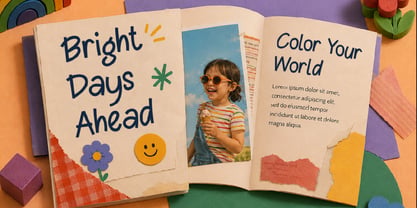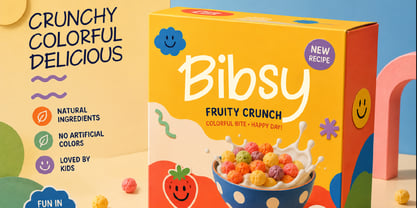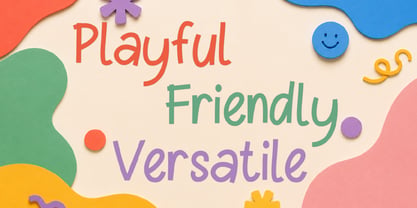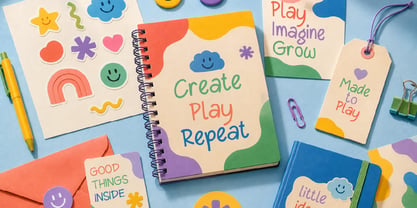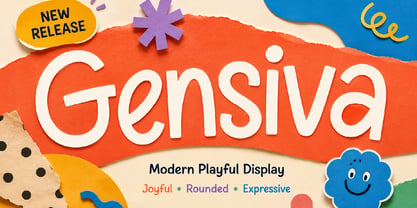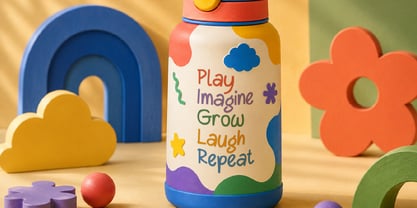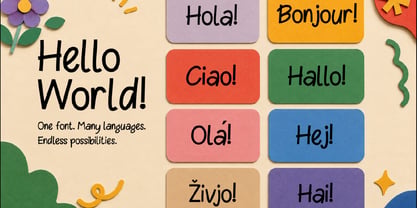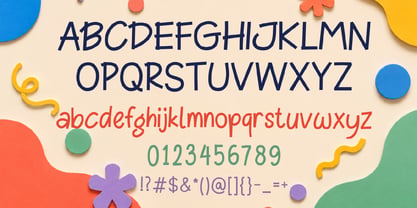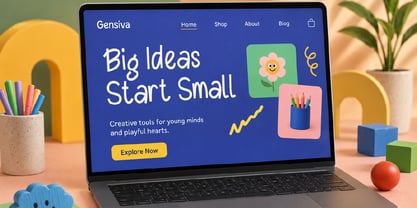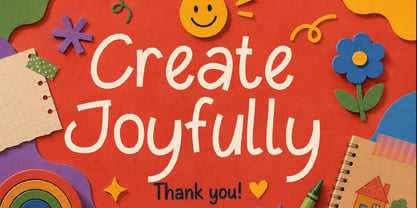
Gensiva
Gensiva is a cheerful display typeface designed to infuse warmth, creativity, and personality into every project. Its soft curves, playful rhythm, and contemporary character shapes create a friendly visual voice that is both artistic and approachable. Ideal for modern branding systems, colorful packaging, editorial layouts, creative websites, and children-focused visual identities, Gensiva strikes a perfect balance between fun energy and clean readability.
Each letterform showcases a handcrafted personality while maintaining a polished commercial appearance, making it suitable for premium design projects. The typeface features rounded terminals, dynamic proportions, and naturally flowing spacing, resulting in a lively and expressive reading experience. Its playful structure allows headlines and brand statements to engage audiences without overwhelming them, making it perfect for visual storytelling and emotionally driven branding. Whether applied to packaging, posters, websites, stationery, social media campaigns, or editorial compositions, Gensiva creates a joyful atmosphere that captures attention while remaining versatile across various creative applications.
Perfect for:
- Children’s branding
- Lifestyle packaging
- Creative editorial layouts
- Modern websites
- Boutique product identities
- Stationery systems
- Social media campaigns
- Playful advertising visuals
Gensiva is crafted for designers seeking typography that feels bright, human, energetic, and full of character — a typeface that transforms simple words into expressive visual experiences.